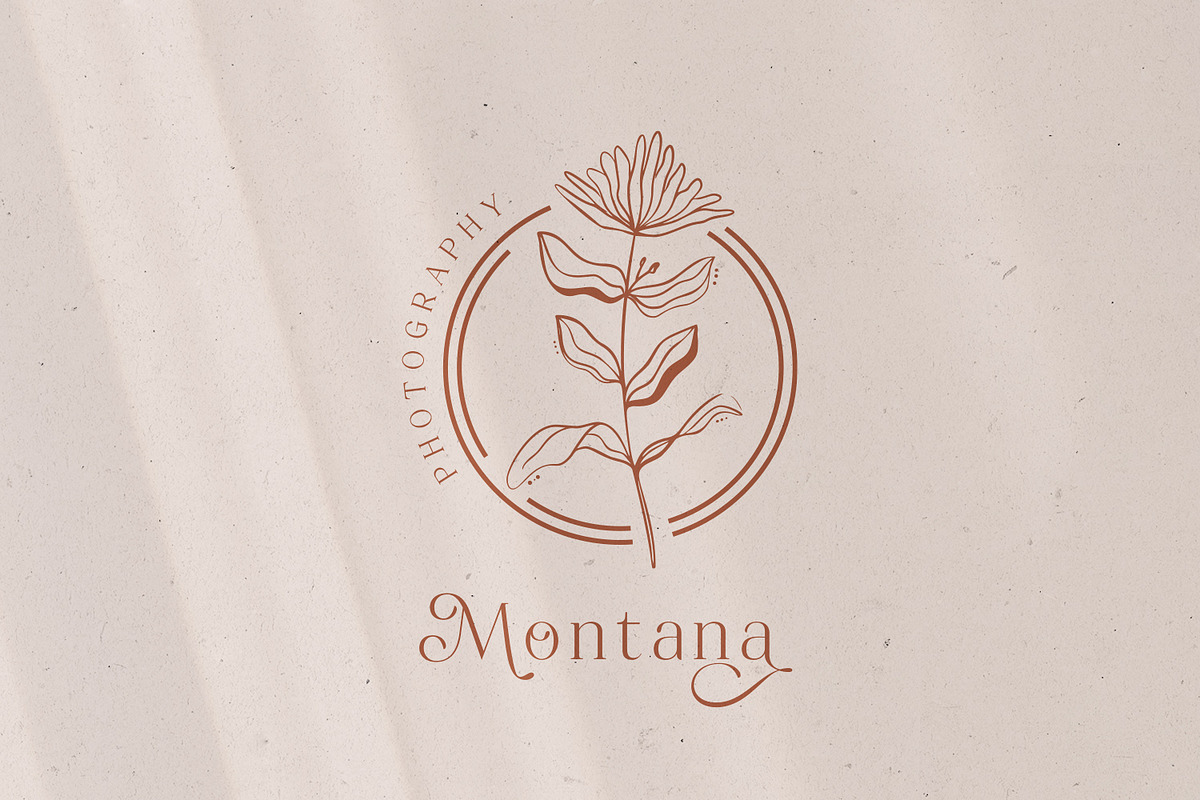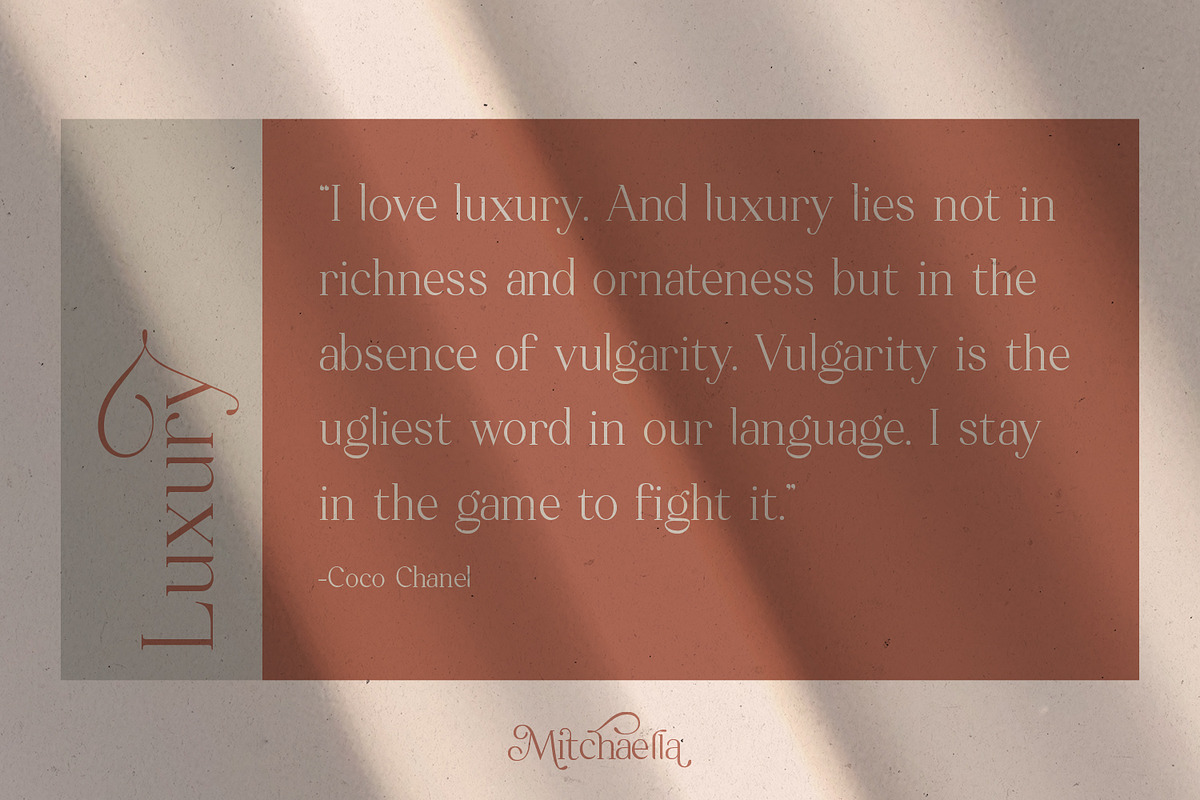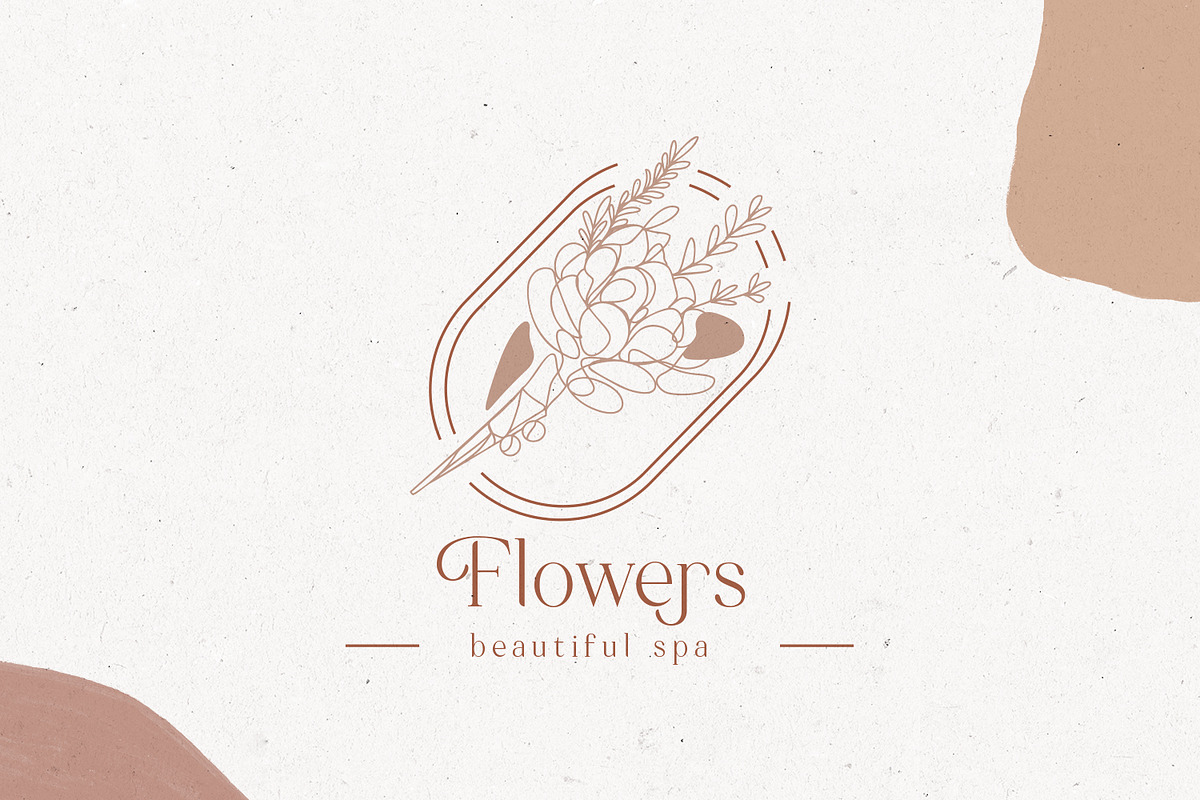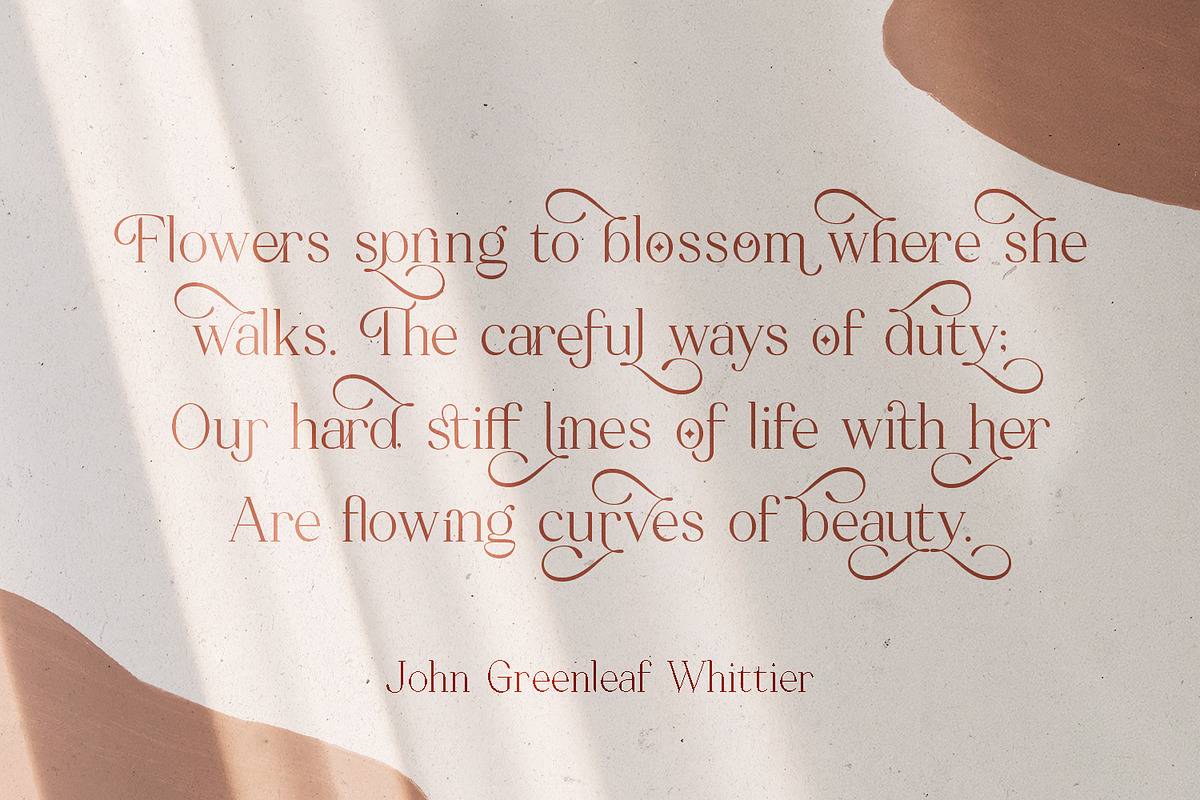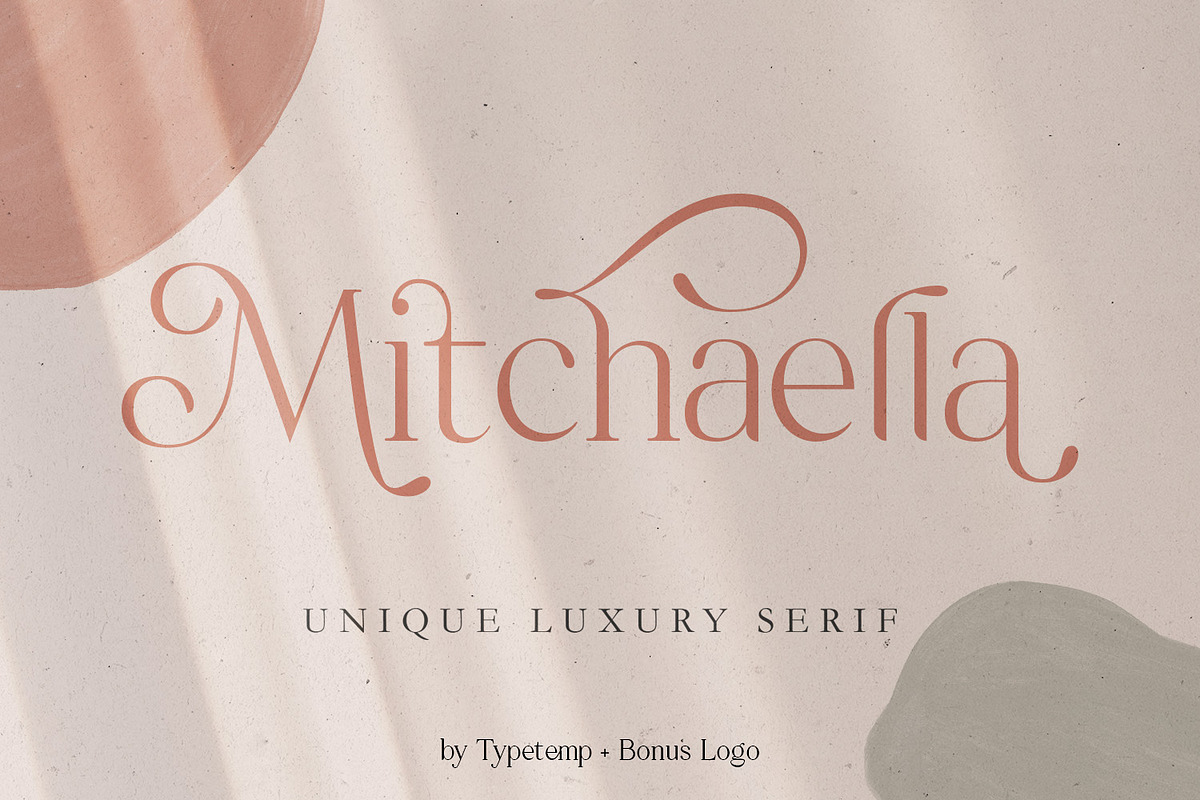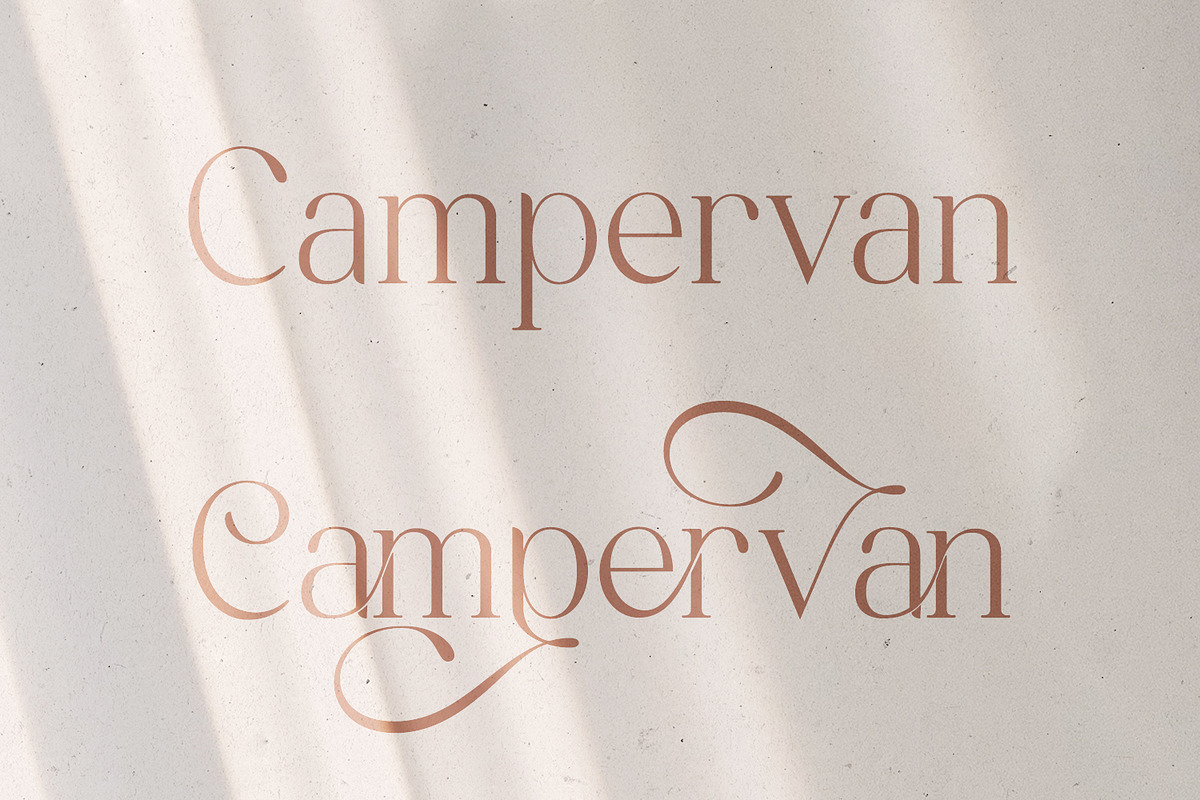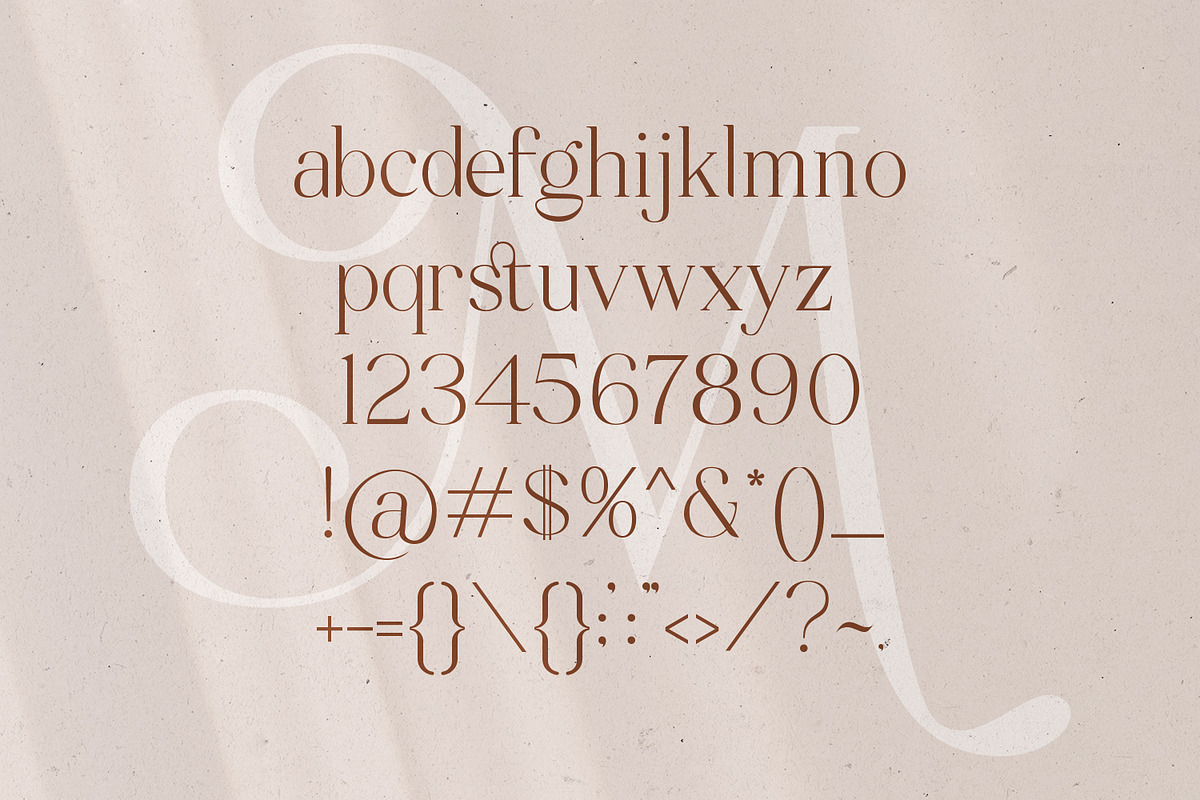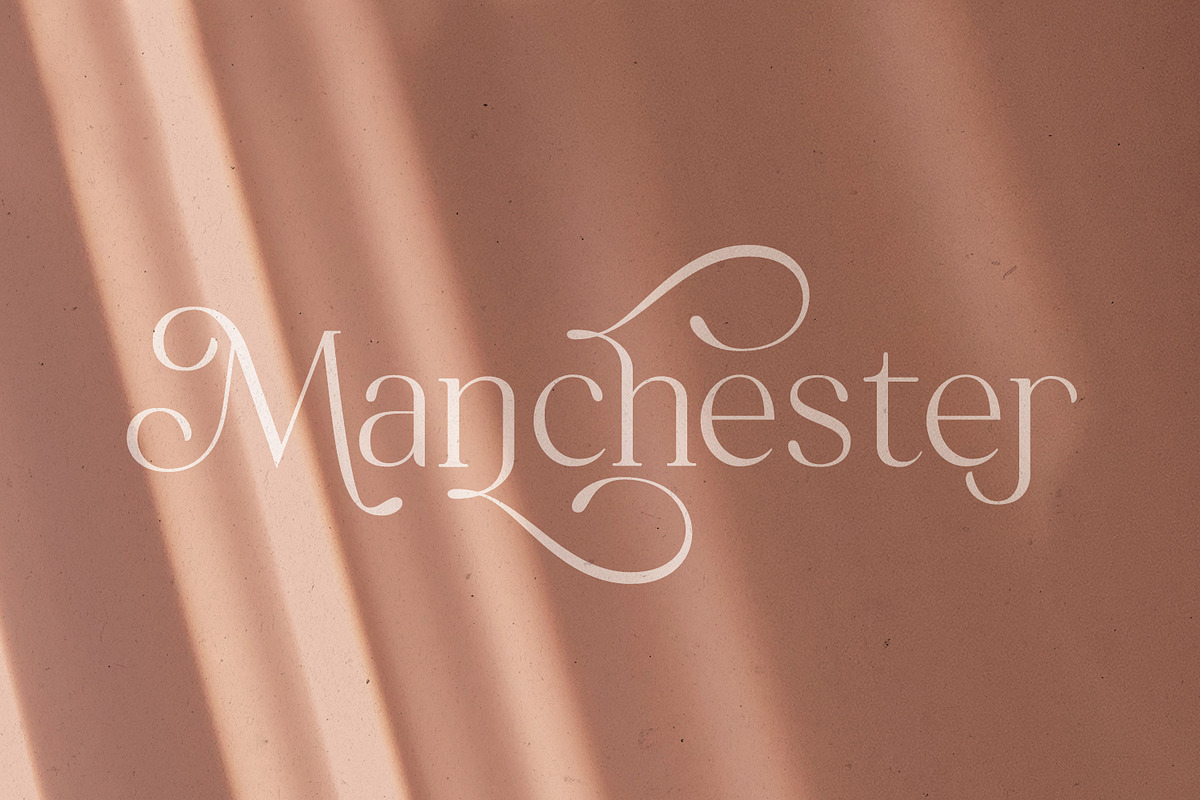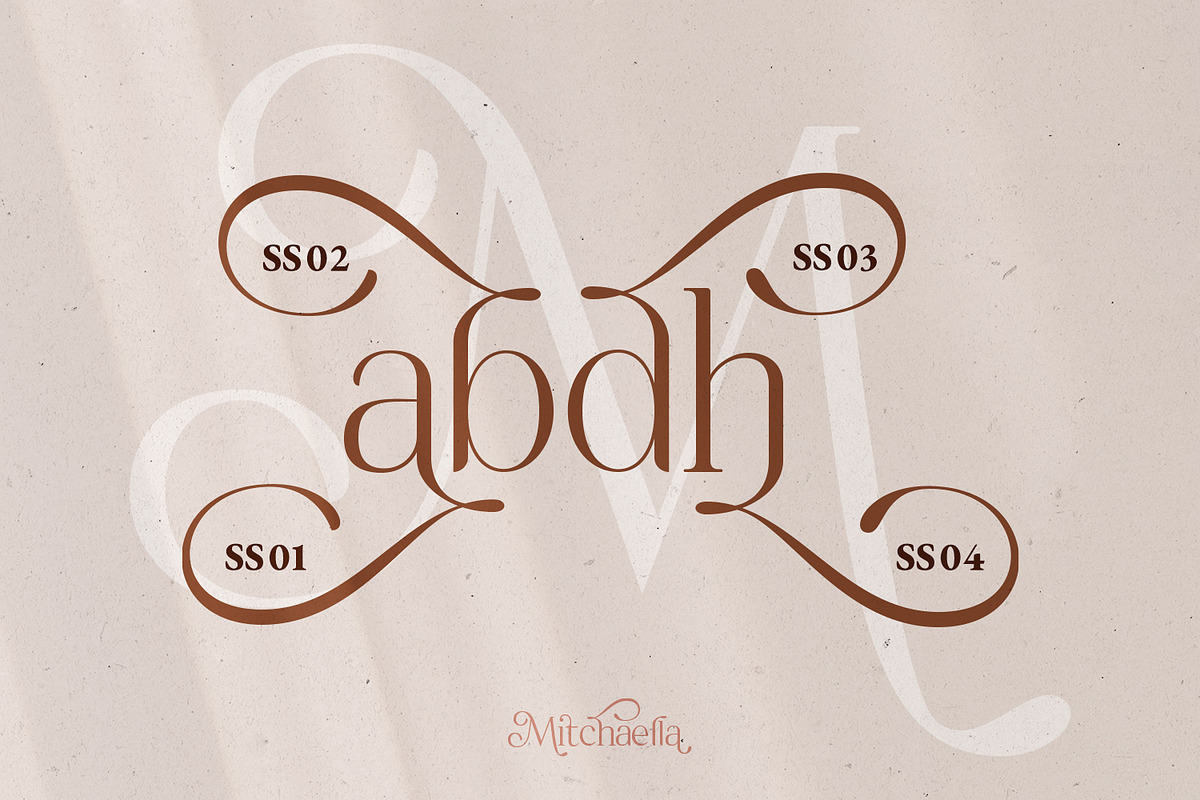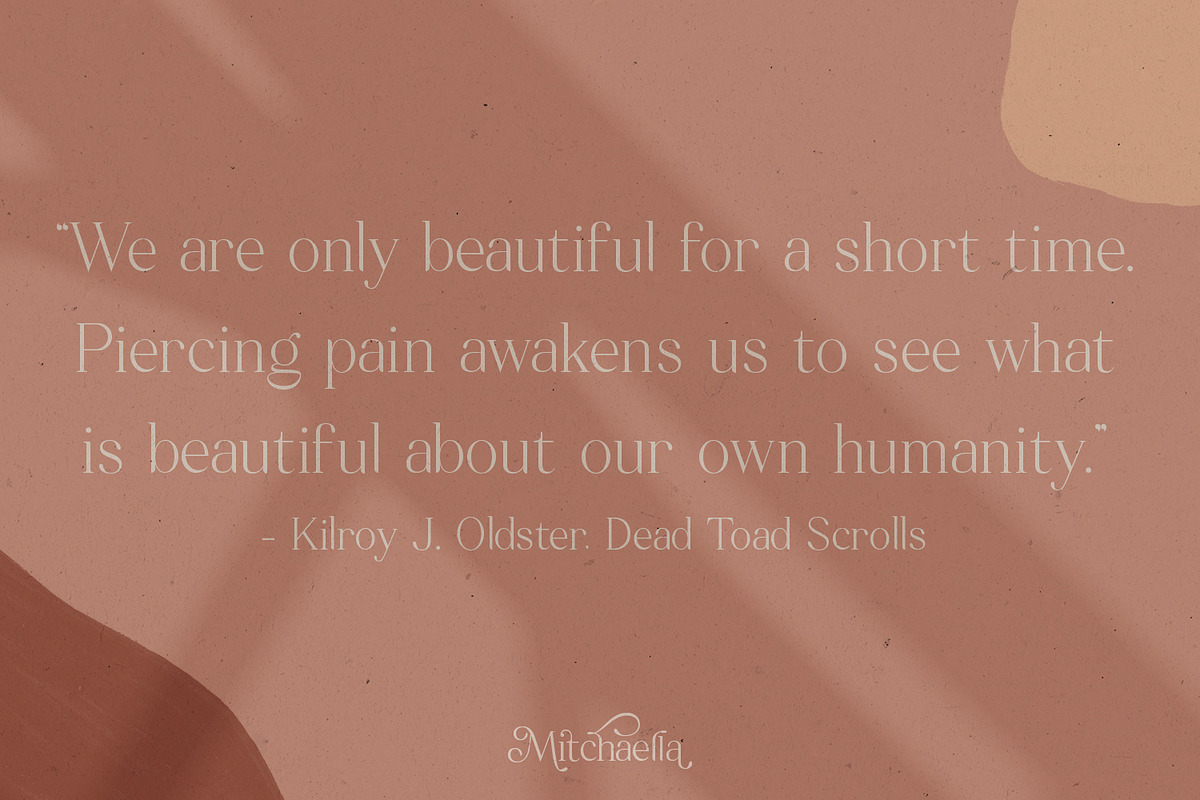
Mitchaella Luxury Unique Serif
Mitchaella Modern Unique a modern-style serif font with alternatives, ligatures, and multilingual suport. Perfect for editorial projects, Logo design, Clothing Branding, product packaging, magazine headers, or simply as a stylish text overlay to any background image.
- Stylistic Alternates & Ligatures
- Multilanguange